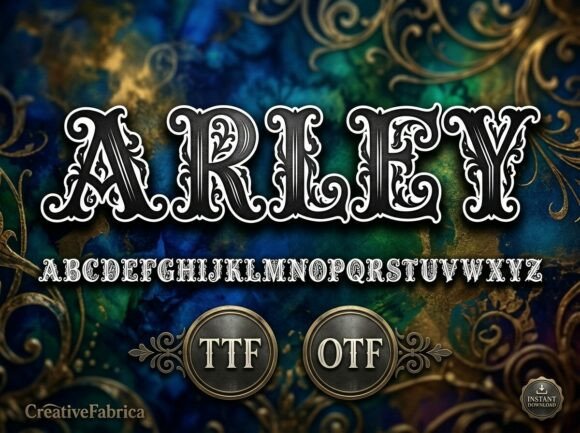
Introducing Arley Font: Elevate Your Aesthetic with Regal Elegance
In the world of typography, few fonts capture the essence of luxury and sophistication as effortlessly as Arley. This stunning display typeface is a masterful blend of vintage and Victorian elements, reimagined for the modern era. With its intricate details, classic letterforms, and prestigious personality, Arley is the perfect choice for designers and crafters seeking to elevate their aesthetic.
The Inspiration Behind Arley
Arley’s design is rooted in the rich traditions of antique letterpress engraving and Victorian typography. The font’s creator drew inspiration from the ornate, high-contrast letterforms of classic luxury brands, infusing them with a modern twist. The result is a typeface that exudes refinement, elegance, and a deep sense of history.
Unique Characteristics of Arley
So, what sets Arley apart from other display typefaces? The answer lies in its distinctive features:
- Intricate Internal Texture: Arley’s letterforms are characterized by a beautiful, hand-drawn “acanthus leaf” filigree that adds a level of sophistication and luxury to any design.
- Baroque Flourishes: The font’s baroque-inspired flourishes bridge the gap between antique and modern, creating a unique visual identity that’s both stately and stylized.
- High-Contrast Letterforms: Arley’s classic letterforms boast high contrast between thick and thin strokes, lending an air of elegance and refinement to any text.
- Heavy Structural Weight: The font’s substantial weight gives it a commanding presence, making it perfect for headlines, titles, and other display text.
Perfect Applications for Arley
Arley’s versatility and luxury aesthetic make it an excellent choice for a range of applications, including:
- Independent Distillery Identities: Arley’s vintage charm and sophisticated personality make it an excellent fit for craft distilleries seeking to establish a premium brand.
- Boutique Jewelry Logos: The font’s luxurious feel and high-end aesthetic are perfectly suited to high-end jewelry brands looking to convey exclusivity and refinement.
- Premium Cigar Packaging: Arley’s classic, elegant design makes it an excellent choice for premium cigar packaging, evoking a sense of luxury and sophistication.
- High-Impact Social Media Headers: The font’s bold, attention-grabbing presence makes it perfect for social media headers, helping brands stand out in a crowded online landscape.
Why Designers and Crafters Love Arley
Arley’s unique blend of vintage charm and modern luxury has won the hearts of designers and crafters worldwide. Here are just a few reasons why:
- Unparalleled Versatility: Arley’s range of applications is virtually limitless, making it an excellent addition to any designer’s toolkit.
- Instant Brand Recognition: The font’s distinctive personality and luxurious aesthetic help create instant brand recognition, setting businesses apart from the competition.
- Ease of Use: Arley’s clean, elegant design makes it easy to use and pair with other fonts, ensuring seamless integration into any design project.
Arley Font is a true masterpiece of typographic design, offering a regal and sophisticated aesthetic that’s perfect for luxury brands, designers, and crafters. Its intricate details, classic letterforms, and prestigious personality make it an excellent choice for anyone seeking to elevate their design and create a lasting impression. Whether you’re looking to establish a premium brand, create stunning packaging, or simply add a touch of elegance to your design, Arley is the perfect choice.